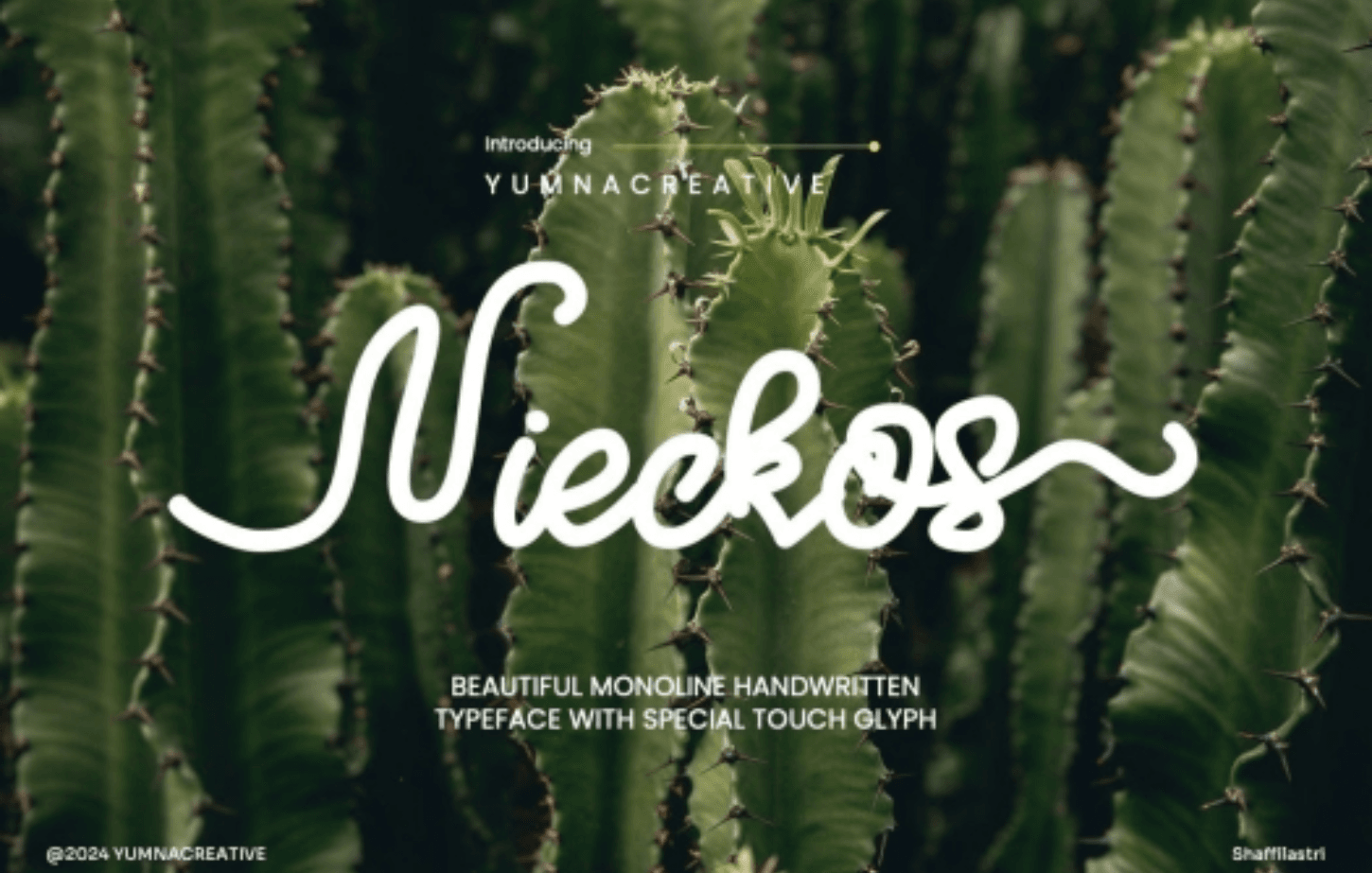
Nieckos – Monoline Handwritten Font
Nieckos, a captivating monoline handwritten font that exudes delicacy and elegance while boasting a seamless flowing style. Crafted with a meticulous touch, this font showcases a unique fusion of ligatures and decorative swirls that effortlessly elevate any text, lending a modern touch to your design projects. Perfect for adding a touch of sophistication and individuality, Nieckos is set to infuse your creations with a refined and distinctive charm.